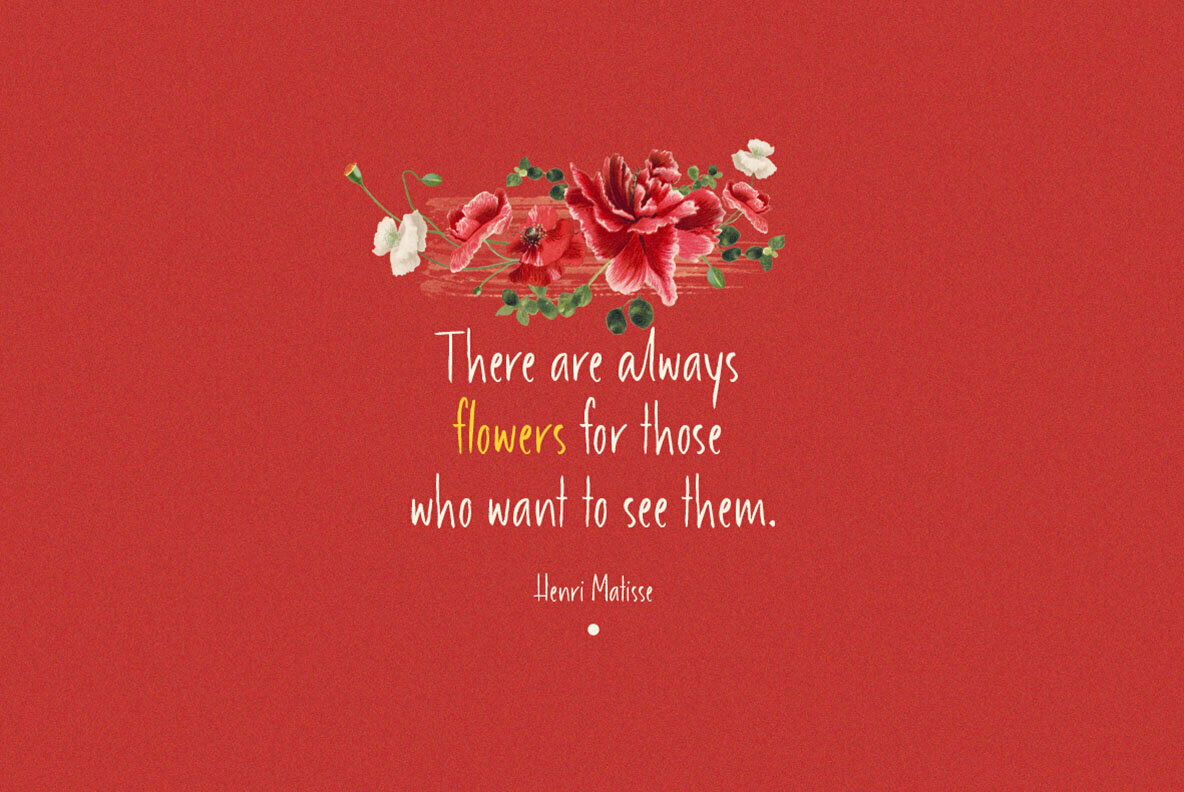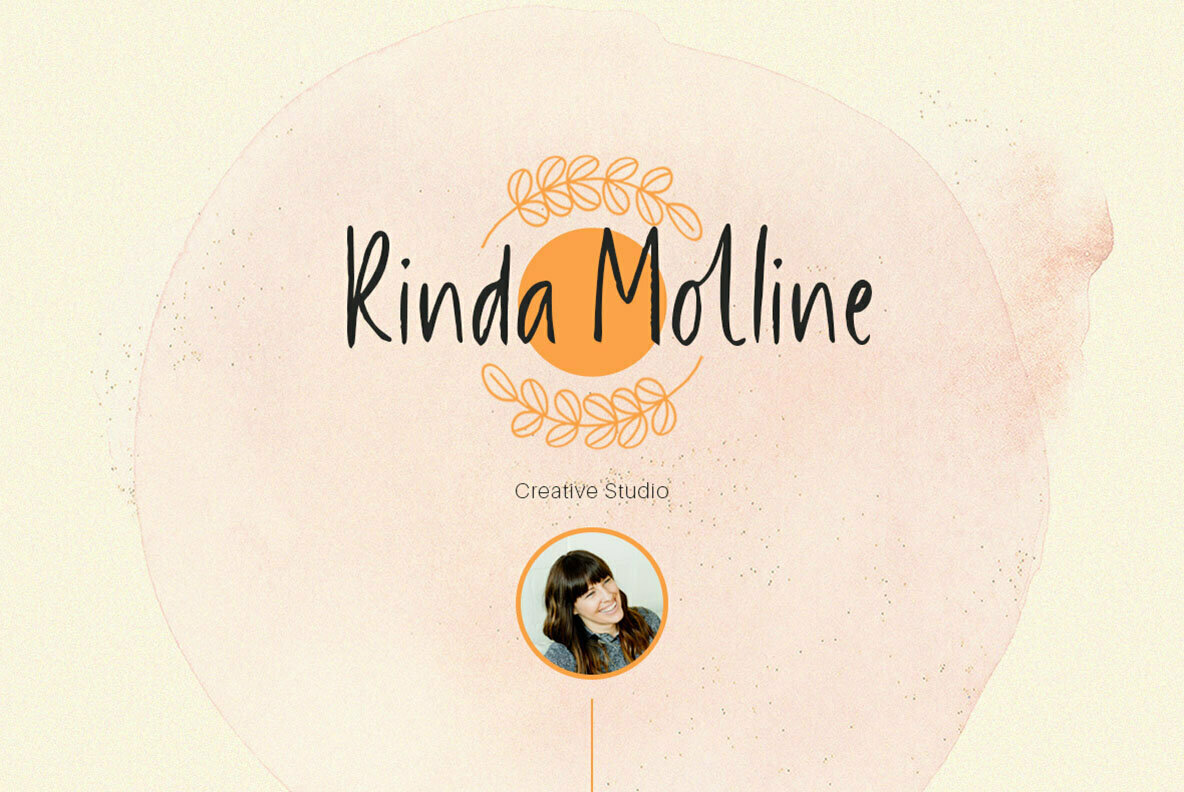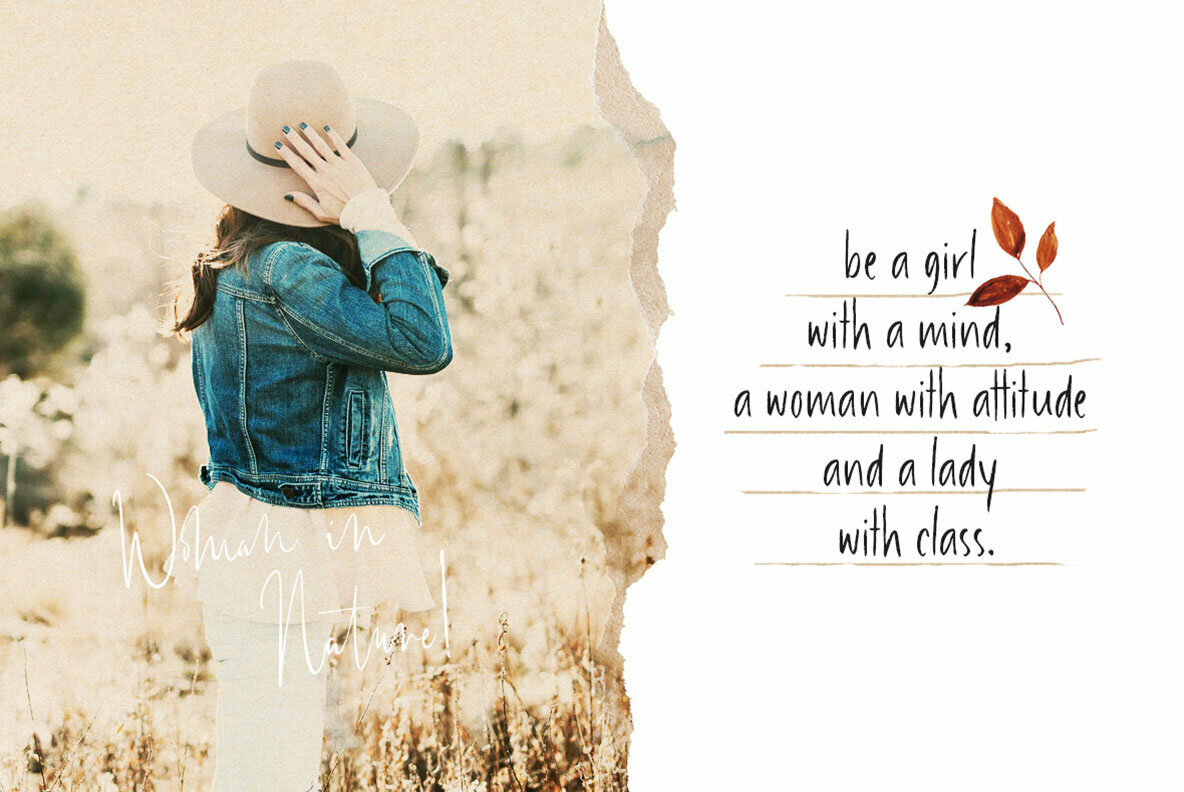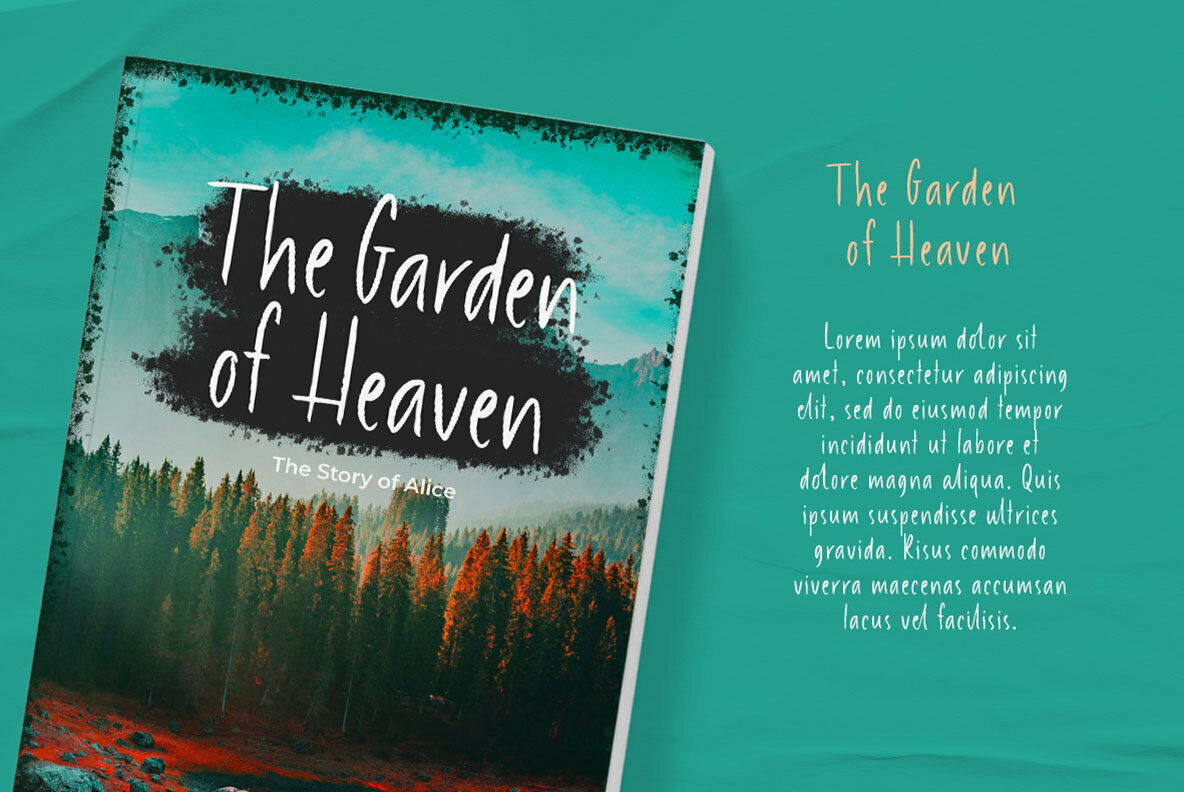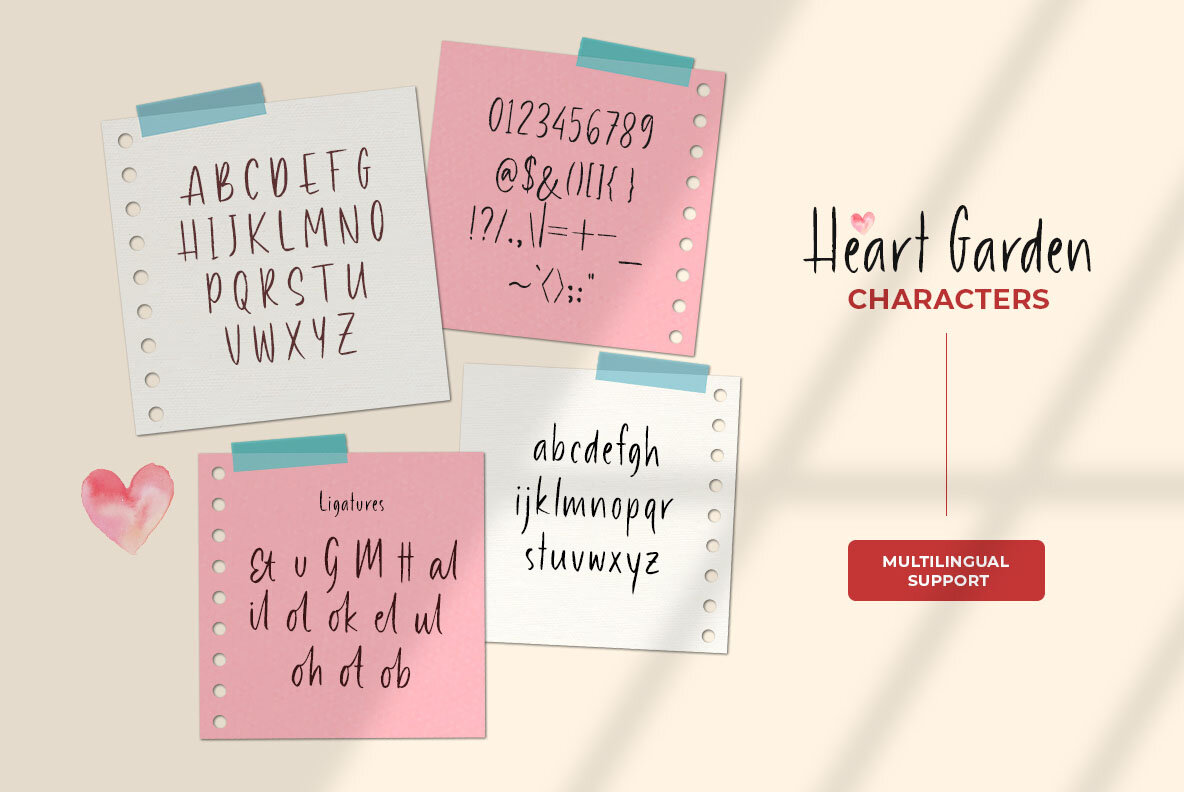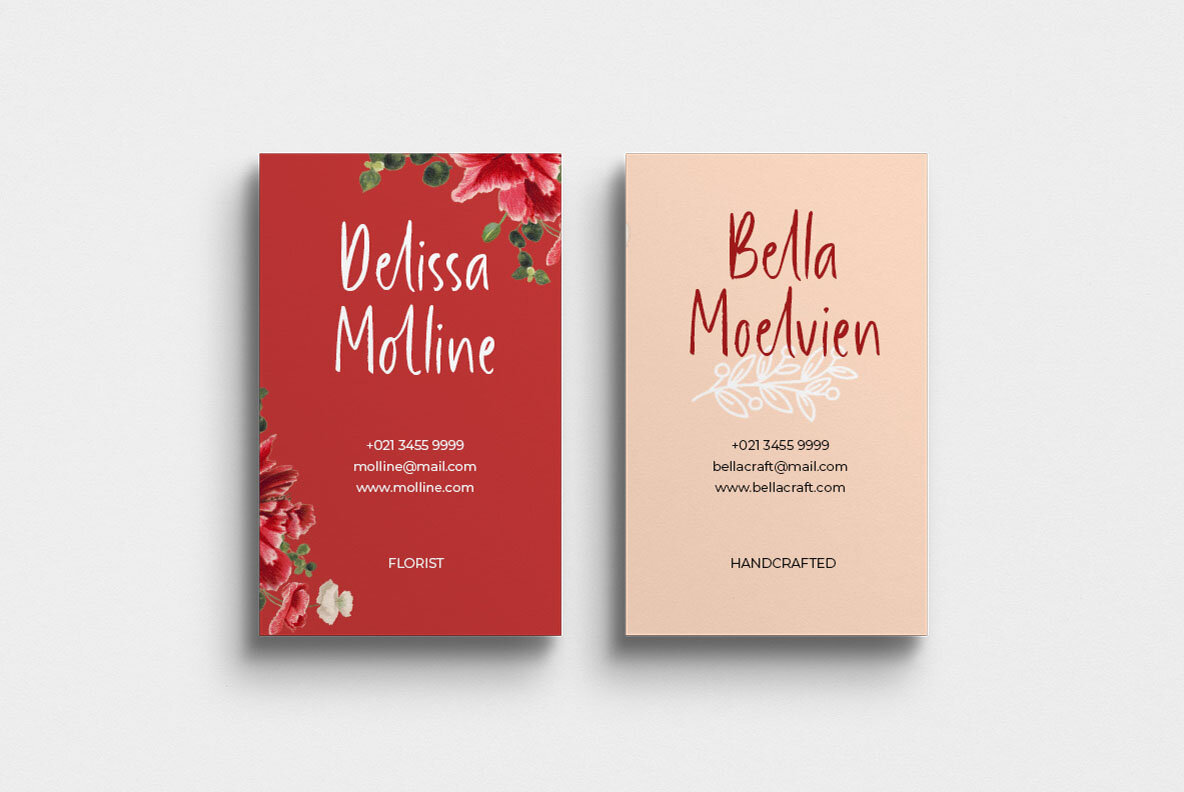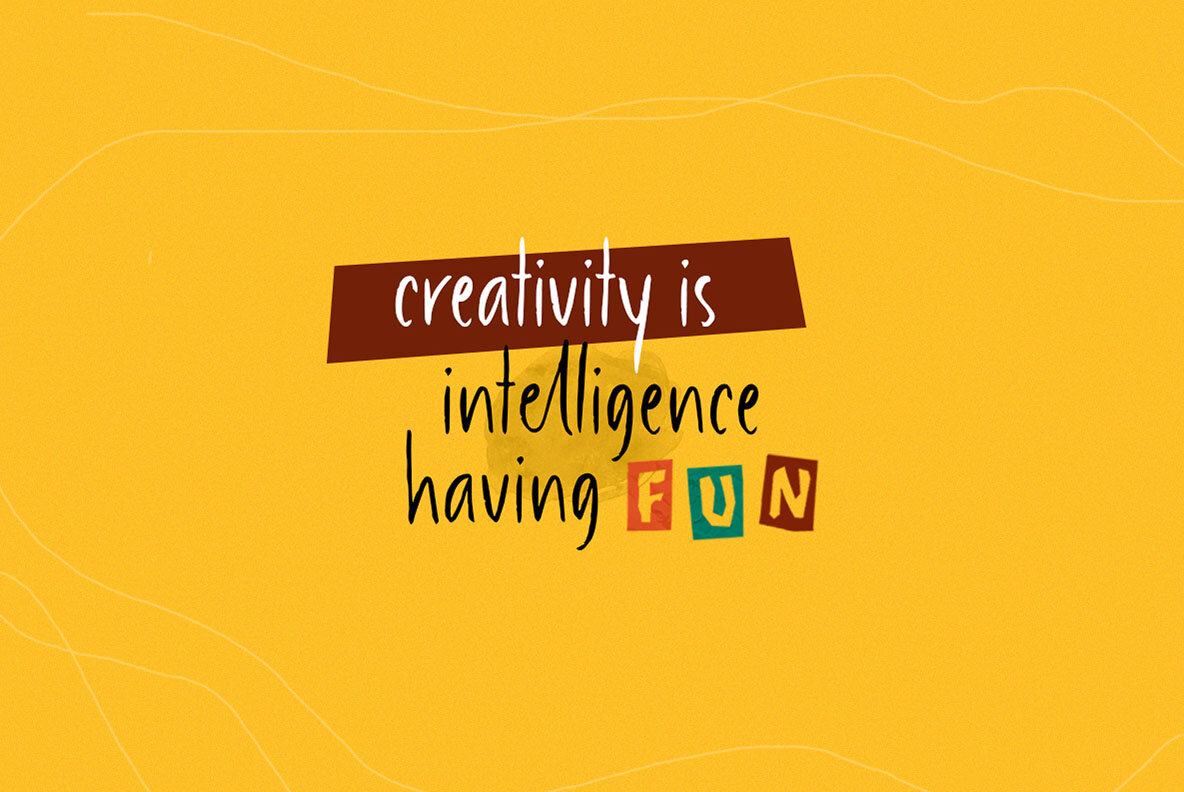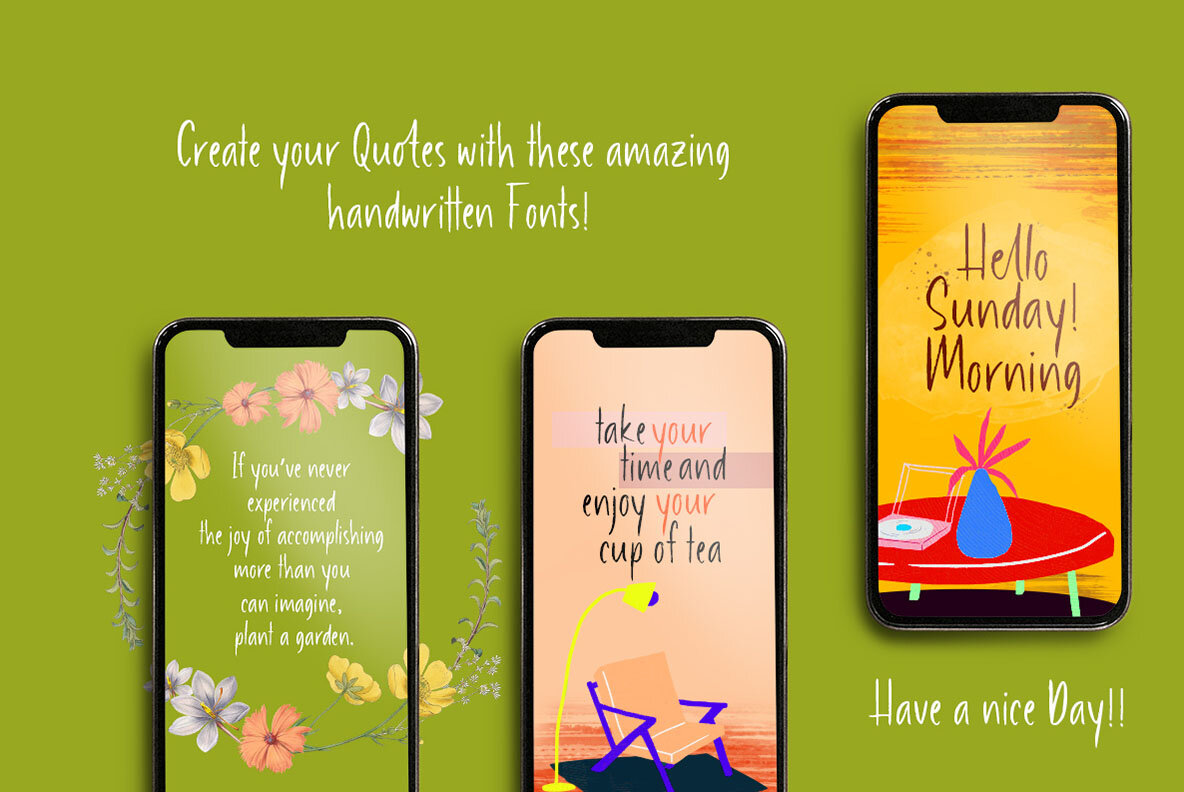
Heart Garden Font
Heart Garden Regular
Heart Garden seamlessly blends a modern touch with a casual elegance, offering an aesthetic and straightforward font option for your creative pursuits. This typeface embodies a refined yet contemporary appearance, making it ideal for headlines, logotypes, invitations, and various design projects from branding to advertising. For maximal use of Heart Garden's intricate features, programs supporting OpenType and Glyphs panels, such as Adobe applications and Corel Draw, are recommended.Heart Garden: A Modern, Aesthetic Typeface